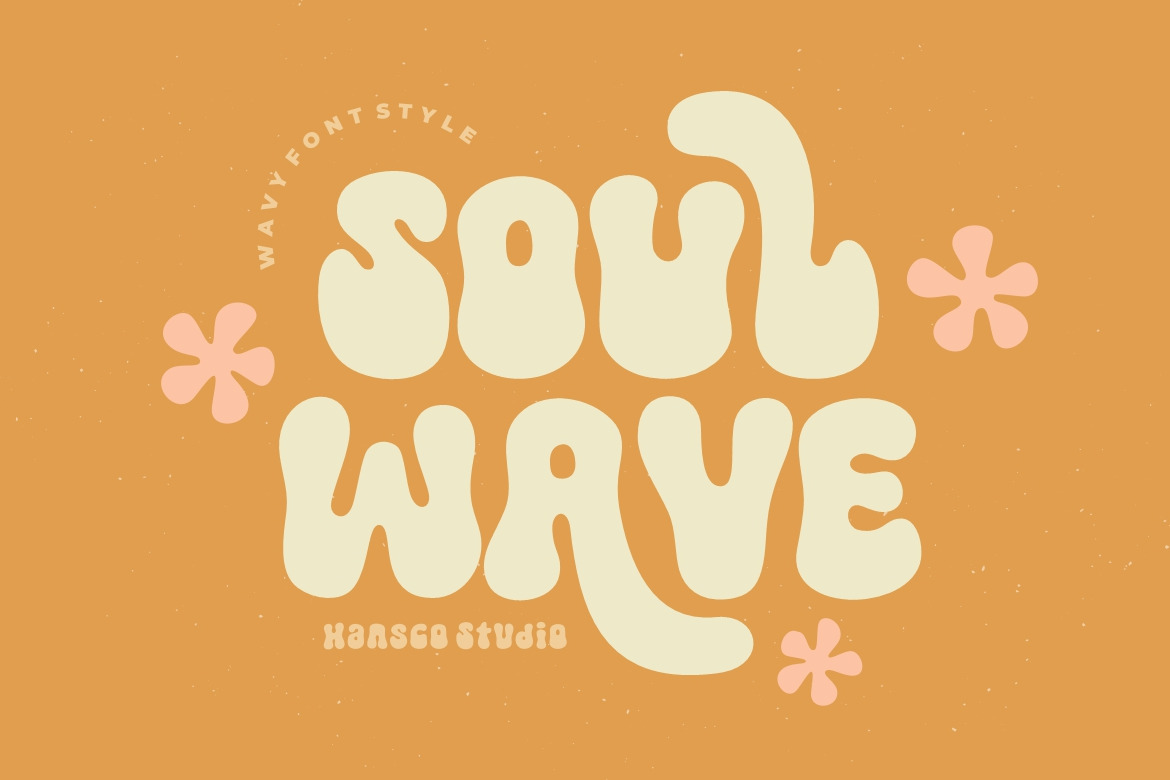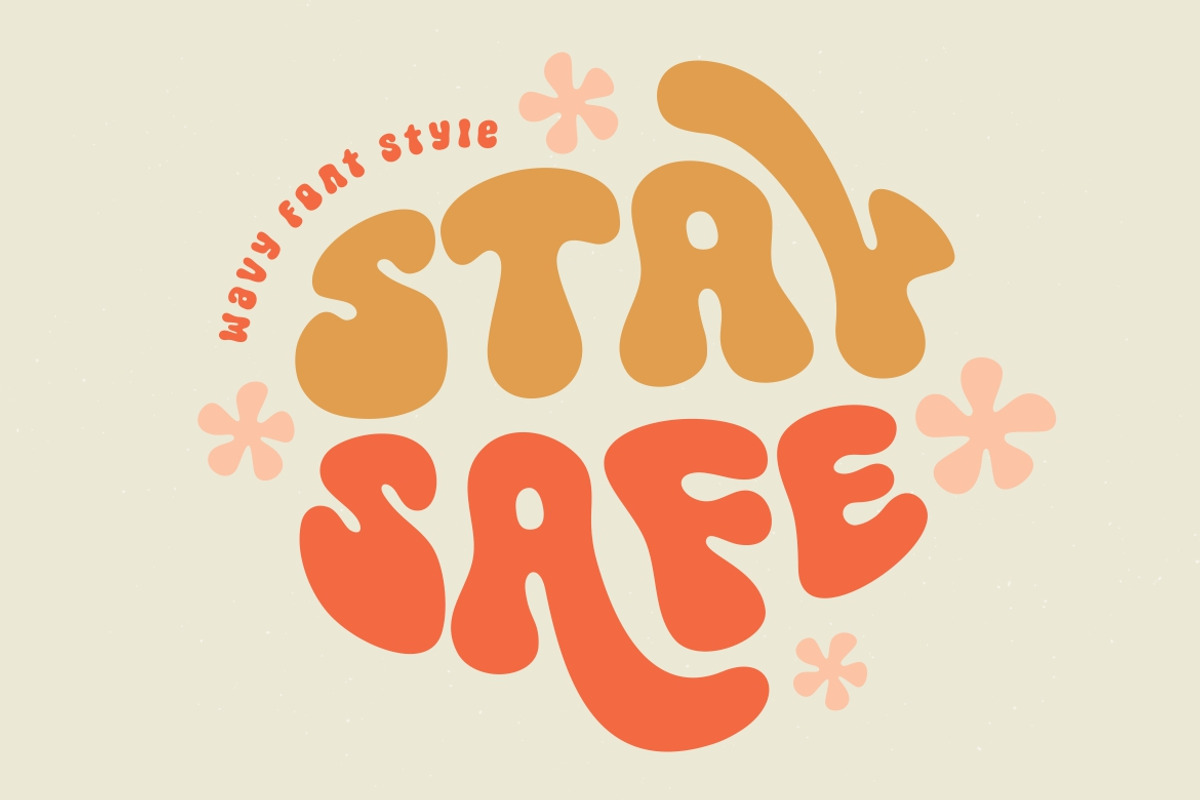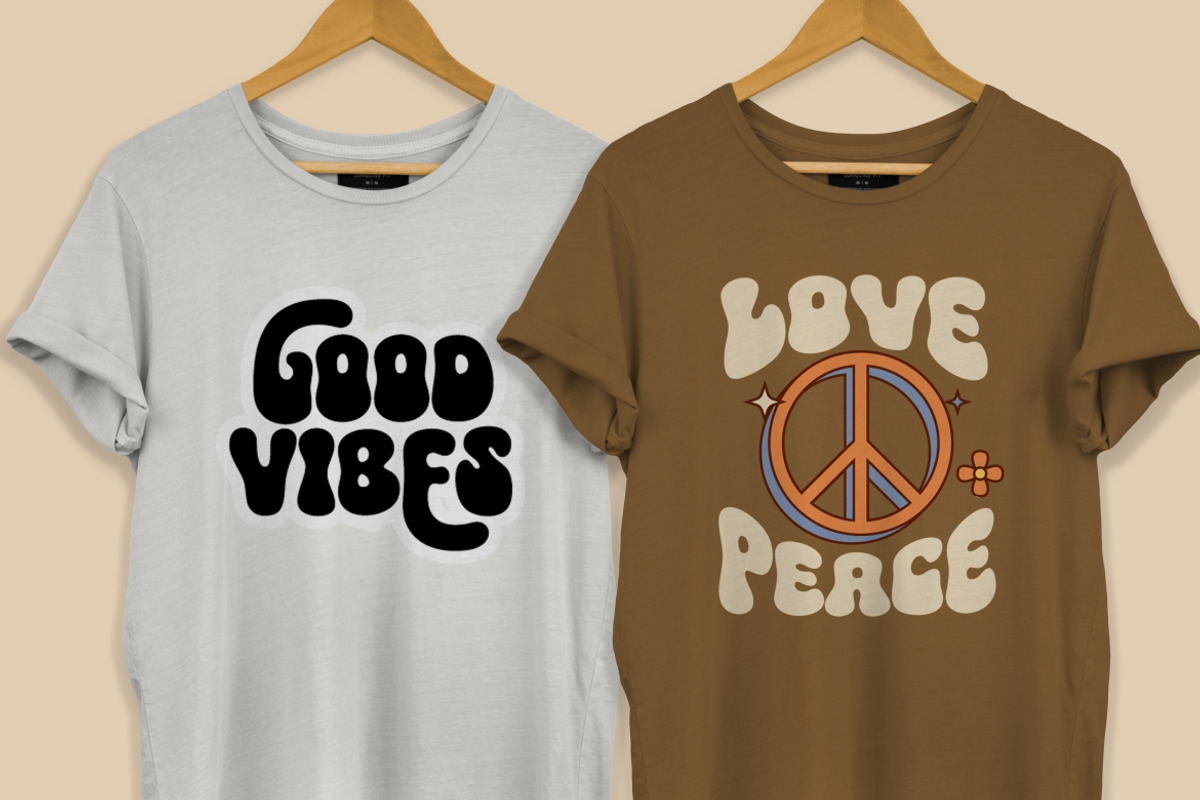
Soul Wave - Retro Wavy Font
Soul Wave font is a wavy retro groovy display font. Use this display font to add that special retro wavy touch to any design idea you can think of.. Masterfully designed to become a true favorite, this font has the potential to bring each of your creative ideas to the highest level!
Very suitable for logotype, Stickers, Packaging design, Cricut Project, headlines, brand identity, t shirt or apparel industry, posters, magazines, books, YouTube, Instagram, websites, or any of your creative design projects.